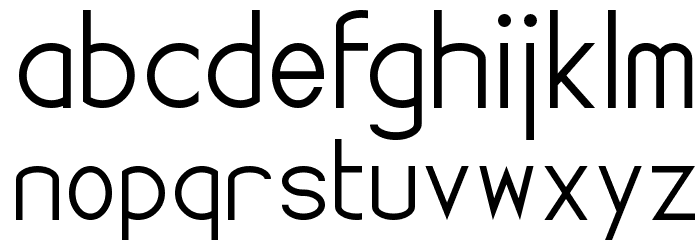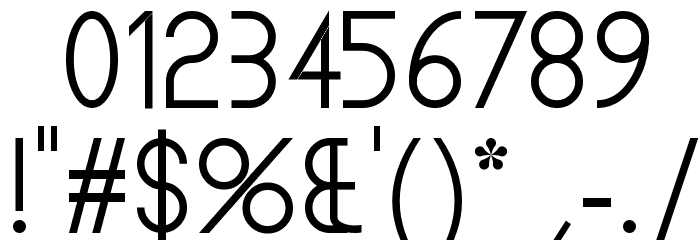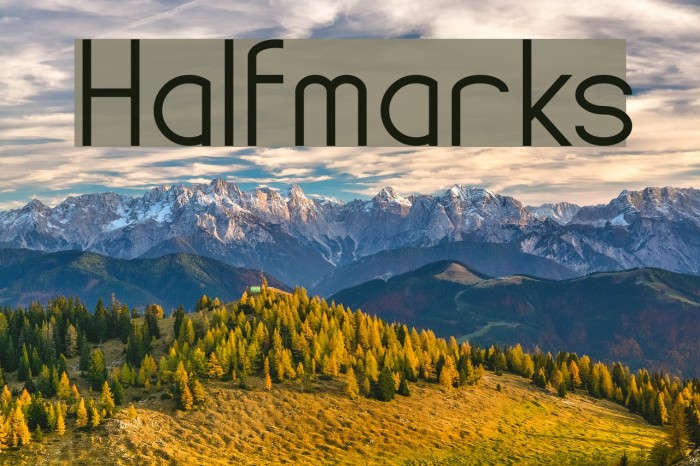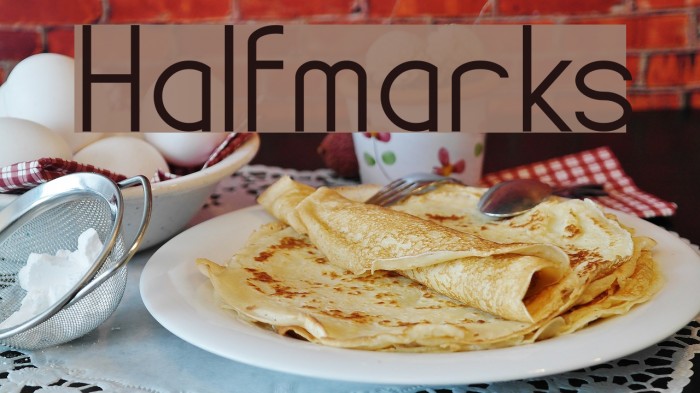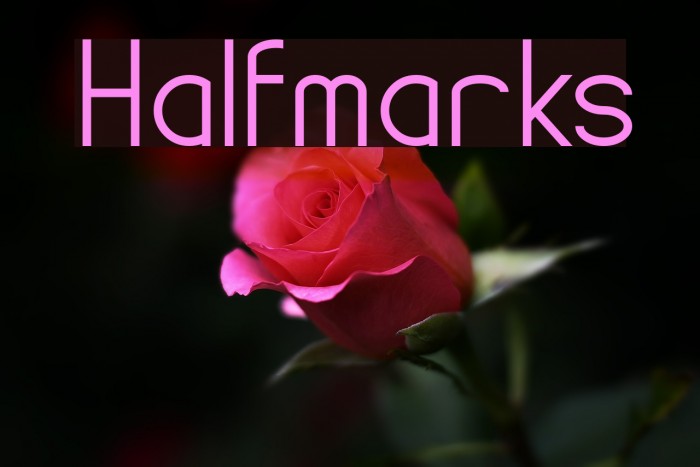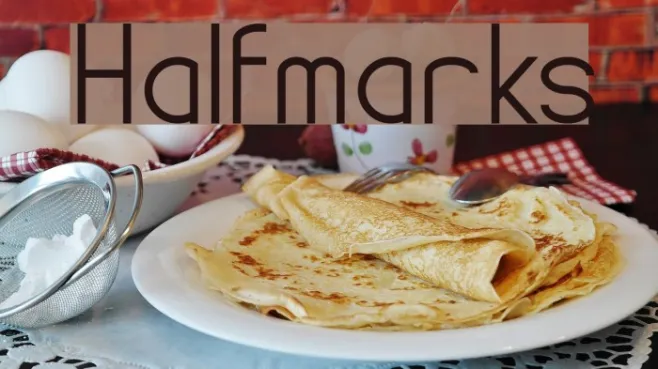
Halfmarks Font
This font presents a clean and modern aesthetic with a geometric sans-serif style. The characters are uniform and well-proportioned, offering a sleek and minimalist appearance. The uppercase letters are tall and slightly narrow, while the lowercase letters maintain a consistent roundness, contributing to a harmonious look. The numerals are clear and distinct, making them easily legible. Special characters are designed with simplicity in mind, ensuring they blend seamlessly with the rest of the typeface. This font's straightforward design makes it versatile for various applications.
A clean, geometric sans-serif font with a modern and minimalist style.
- Proposed Projects: Ideal for branding, web design, corporate materials, and editorial layouts.